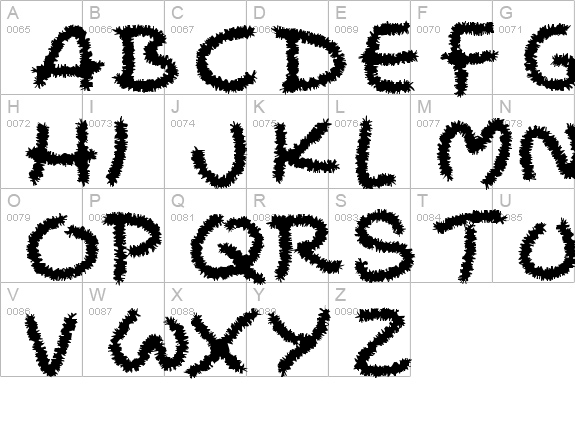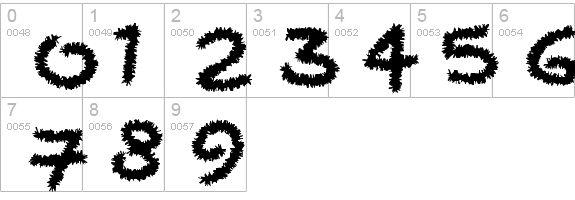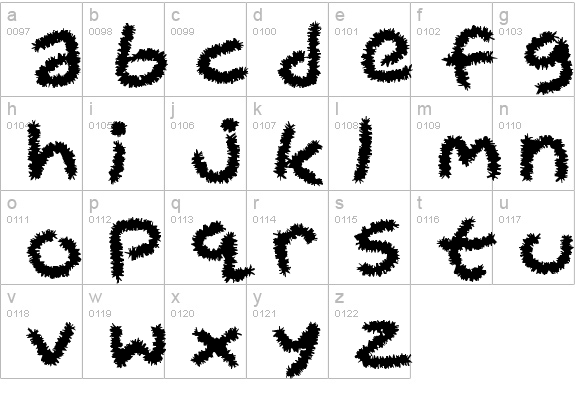
Pipe Cleaners Font Details
Pipe Cleaners is a free for personal use font in the Fancy > Decorative category, designed by Darrell Flood. It has been downloaded 147 times and is available for Windows, Mac and Linux.
Pipe Cleaners font is a whimsical and playful typeface that brings a unique charm to any design project. Its quirky and hand-drawn style resembles the fuzzy texture of actual pipe cleaners, making it perfect for adding a fun and creative touch to your work.
This font is not only fun to use, but also incredibly versatile. Whether you're working on a children's book, a party invitation, or a branding project that needs a bit of whimsy, Pipe Cleaners font is sure to make your design stand out.